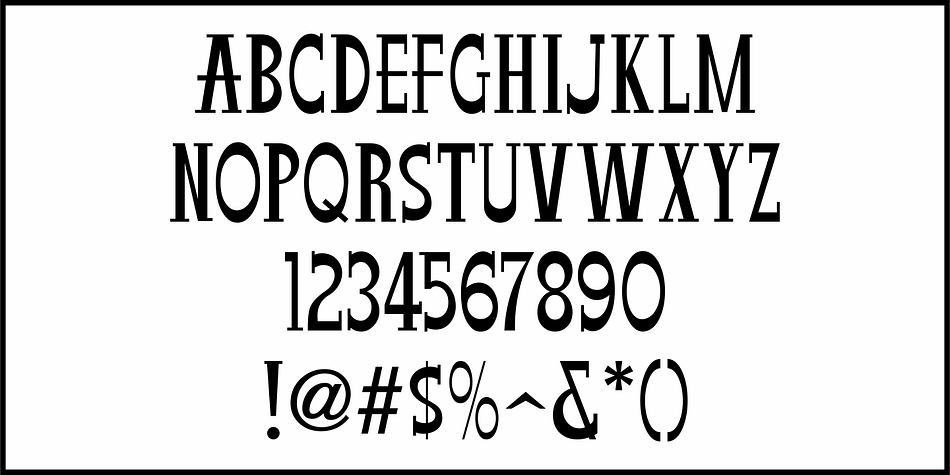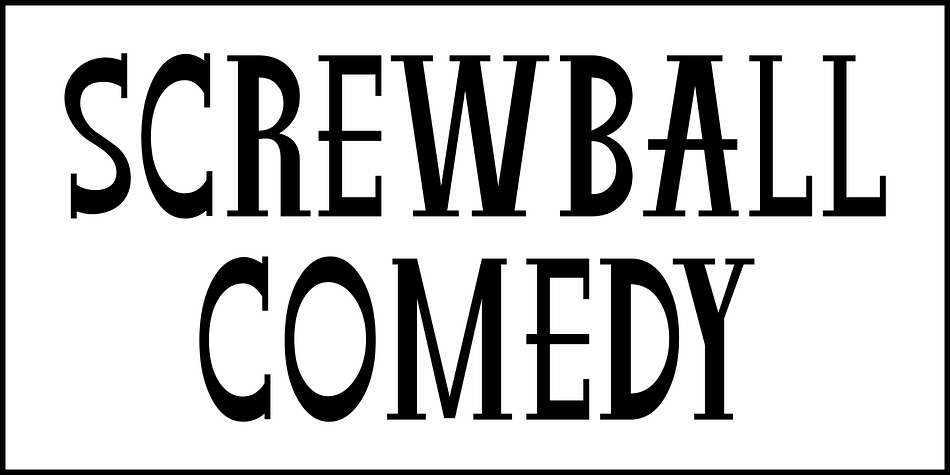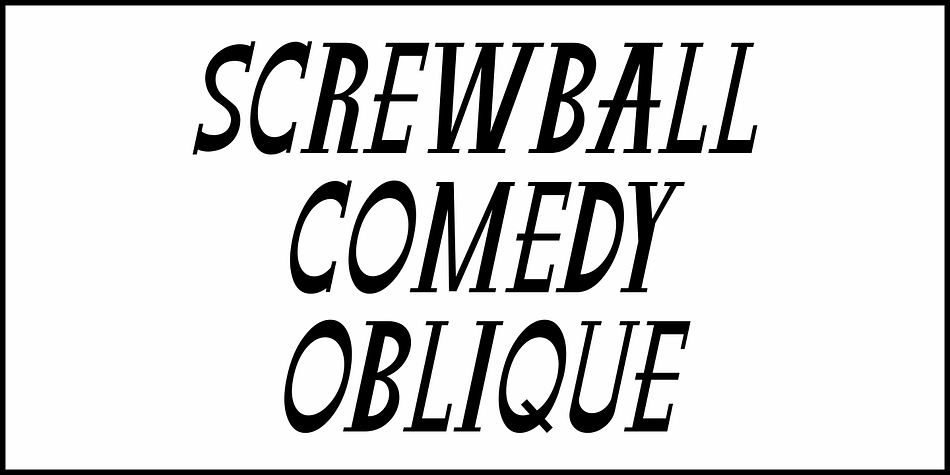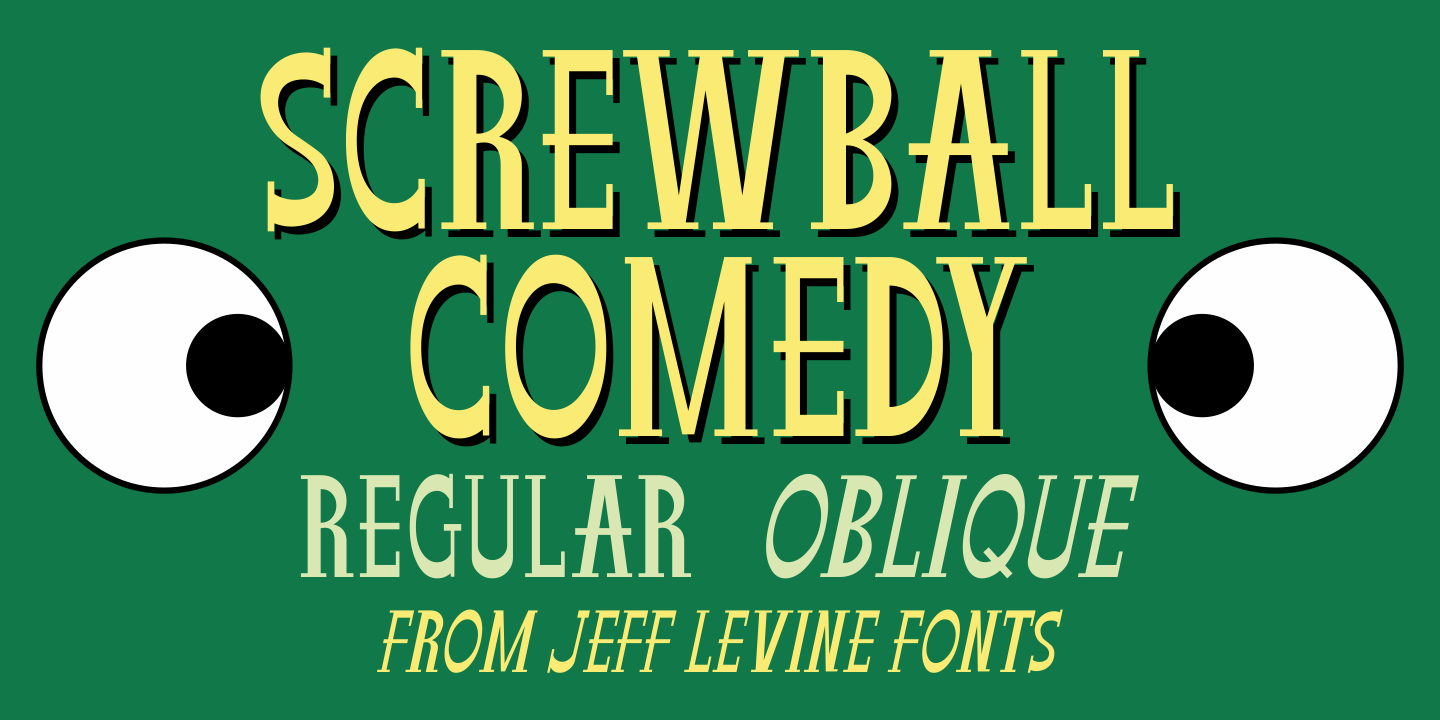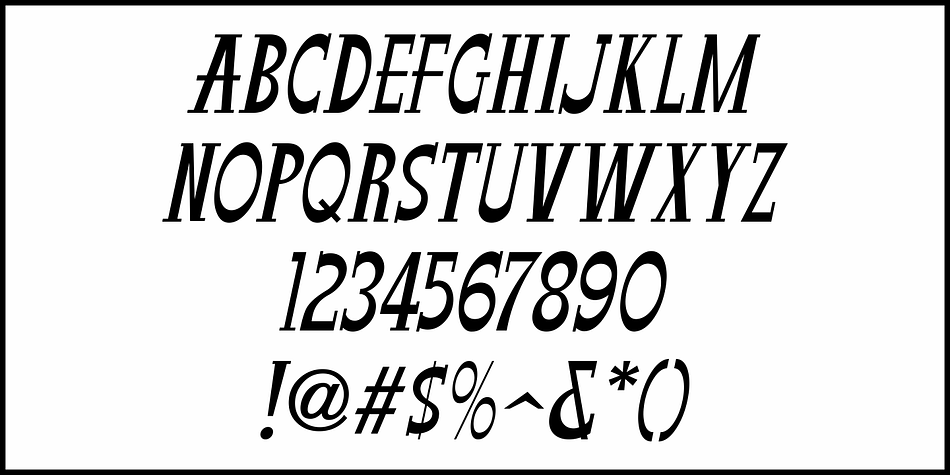
SCREWBALL COMEDY JNL
Designed by Jeff Levine, Screwball Comedy JNL is a display slab font family. This typeface has two styles and was published by Jeff Levine Fonts.
Cary Grant was one of Hollywood’s most versatile actors, playing romantic leads, dramatic parts and showing off his impeccable timing in screwball comedies.
A perfect example of this is Frank Capra’s “Arsenic and Old Lace” from 1942.
The movie trailer for the film had the title hand lettered in a playful and casual slab serif style, with varying character shapes and weights.
This is now available as Screwball Comedy JNL in both regular and oblique versions.